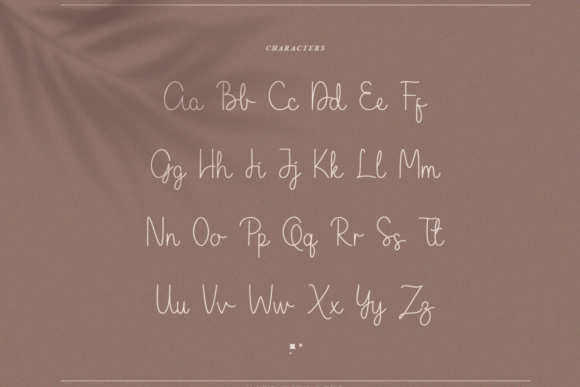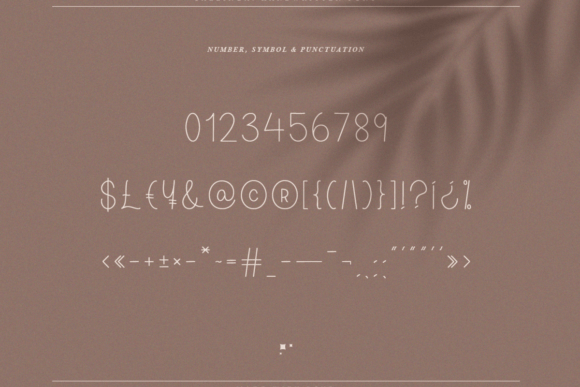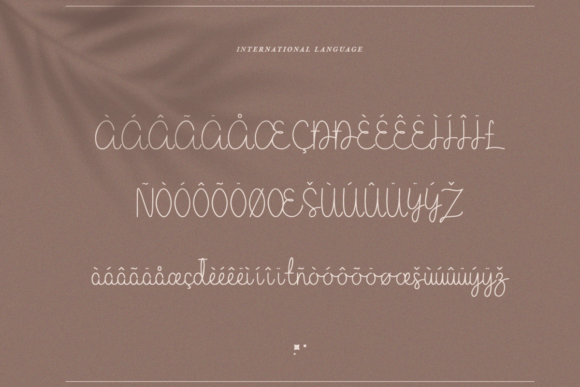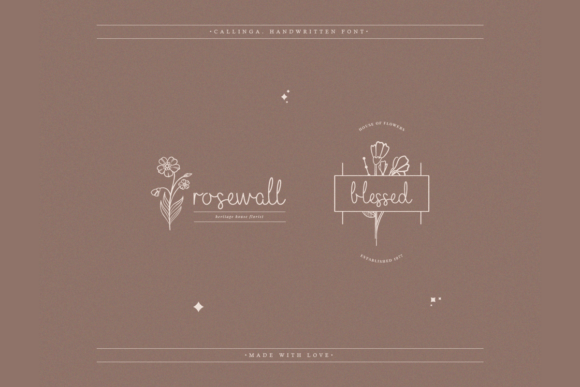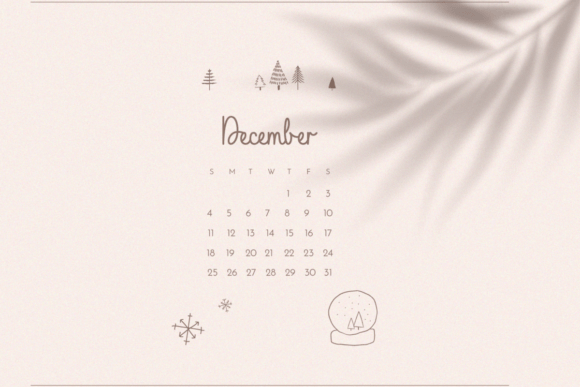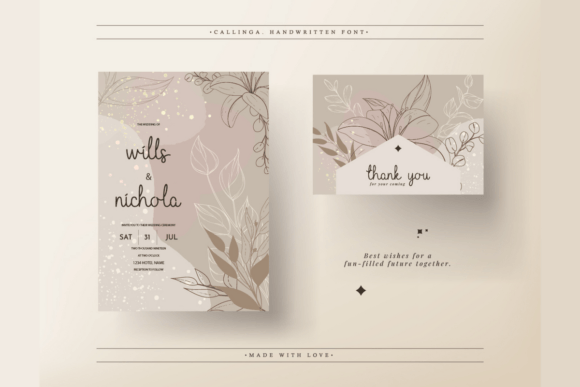
Introducing Calla Font: Elevate Your Designs with Elegance and Sophistication
In the world of typography, few fonts manage to capture the essence of elegance and sophistication as effectively as Calla Font. Launched in 2022, Calla Font has quickly become a favorite among designers and crafters looking to infuse their projects with a touch of luxury and refinement. This gorgeous handwritten font is not just a pretty script; it’s a versatile tool that can elevate a wide range of design projects, from wedding invitations and logos to posters and greeting cards.
The Beauty of Calla Font
Calla Font stands out with its extraordinary and stylish aesthetic, making it perfect for projects that demand a high level of sophistication. Its unique, handwritten charm brings a personal touch to any design, allowing creators to produce work that is both visually stunning and deeply engaging. Whether you’re working on a wedding invitation, a business logo, or a poster, Calla Font provides the perfect blend of elegance and charm.
One of the key advantages of Calla Font is its versatility. This font is not limited to a specific type of project; rather, it can be used across a broad spectrum of design applications. Here are some of the areas where Calla Font truly shines:
- Invitations: Add a touch of elegance to your wedding invitations, birthday parties, or any other special occasion with Calla Font’s sophisticated charm.
- Wedding Projects: From wedding stationery to ceremony decor, Calla Font can help create a cohesive and stylish look for your big day.
- Logos: Use Calla Font to create a memorable and stylish logo for your business or brand, setting you apart from the competition.
- Table Menus: Elevate your restaurant or event menu with Calla Font, adding a touch of sophistication to your offerings.
- Greeting Cards: Create beautiful, heartfelt greeting cards for any occasion with Calla Font’s elegant script.
- Lettering and Posters: Calla Font is perfect for creating eye-catching lettering and posters that demand attention and convey a sense of style.
Why Designers and Crafters Love Calla Font
Designers and crafters have quickly fallen in love with Calla Font for several reasons:
- Ease of Use: Calla Font is incredibly easy to use, even for those who are new to working with fonts. Its clear and smooth lines make it simple to read and work with.
- Customization: Calla Font offers a range of customization options, allowing designers to tailor the font to their specific needs and preferences.
- Uniqueness: In a sea of generic fonts, Calla Font stands out with its unique and distinctive style, ensuring that your designs will not go unnoticed.
Tips for Getting the Most Out of Calla Font
To truly maximize the potential of Calla Font, consider the following tips:
- Experiment with Sizes: Calla Font looks great in a variety of sizes, from large headings to smaller body text. Don’t be afraid to experiment to find the perfect fit for your project.
- Play with Colors: While Calla Font is stunning in black, it also works beautifully in a range of colors. Try pairing it with complementary colors to add depth and interest to your designs.
- Mix and Match: Don’t be afraid to combine Calla Font with other fonts to create a unique and visually appealing design.
| Font Name | Callinga Font |
| Author | inferno.type3 |
Calla Font is more than just a font; it’s a design tool that can elevate your projects to new heights of elegance and sophistication. With its unique style, versatility, and ease of use, it’s no wonder that Calla Font has quickly become a favorite among designers and crafters. Whether you’re working on a wedding invitation, a logo, or a poster, Calla Font provides the perfect combination of style and charm. So why wait? Discover the beauty and versatility of Calla Font today and take your designs to the next level.